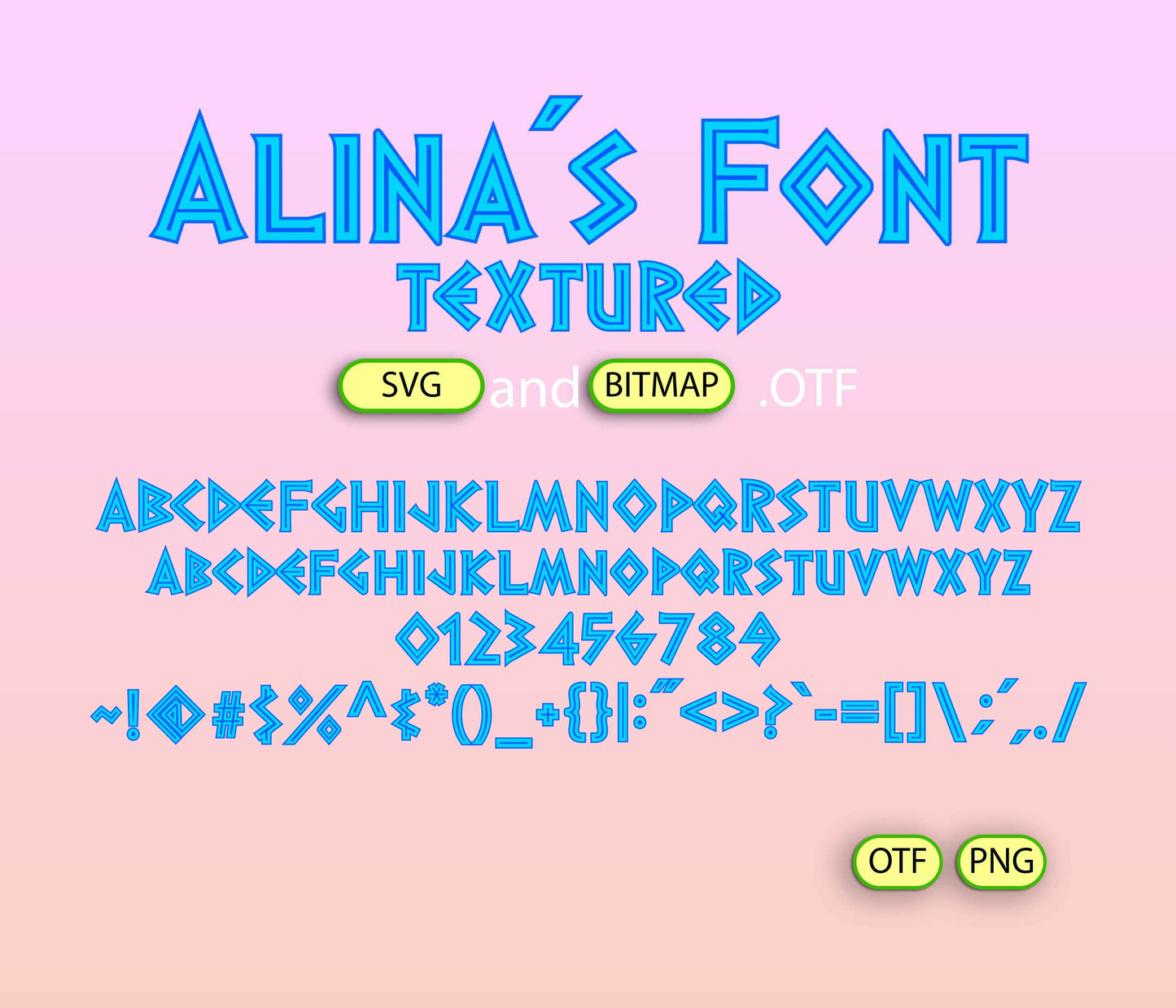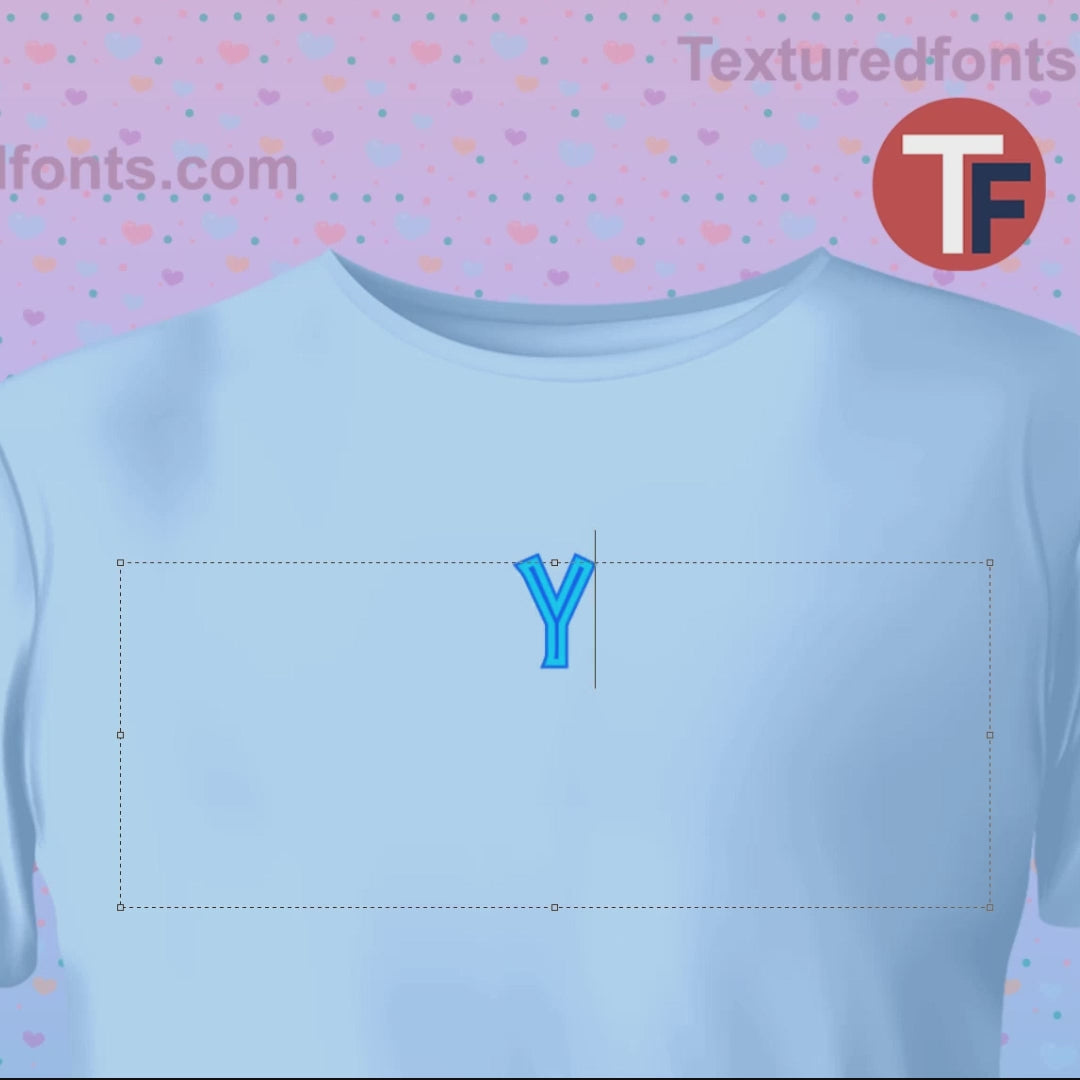
Greek Font Textured
Embrace Timeless Elegance with the Greek Font
Step into the world of ancient elegance and scholarly tradition with our Greek font. Designed to capture the essence of classical Greek letterforms, this font is perfect for projects that require a touch of historical depth and aesthetic grace. Whether you're creating educational content, designing invitations for a themed event, or crafting editorial pieces, our Greek font ensures your projects are imbued with the sophistication and timeless beauty of ancient Greece.
Our Greek font features the distinct, clean lines and geometric shapes characteristic of ancient Greek inscriptions, combined with the readability required for contemporary use. This design not only adds an authentic classical touch but also maintains clarity for modern eyes. The full character set includes uppercase, lowercase, numbers, and special symbols, enabling a wide range of applications:
- Educational Materials: Ideal for history or philosophy course content.
- Event Branding: Create elegant invitations and decor for weddings or galas.
- Literary Publications: Enhance the layout of books, especially those dealing with classical subjects.
- Marketing Materials: Add a refined touch to branding for luxury or artisanal products.
- Personal Projects: Use in art projects or personal stationery to add a historical dimension.
Our Greek-inspired font is more than just a typeface; it's a gateway to the rich history and intellectual heritage of ancient Greece. With its elegant form and versatile application, this font allows you to bring a piece of classical wisdom into every design, making your projects not only visually striking but also culturally enriched. Whether you're evoking the ancient world in a documentary, designing a menu for a Mediterranean restaurant, or creating a themed wedding invitation, the Greek font lends an air of authenticity and sophistication to your endeavors.